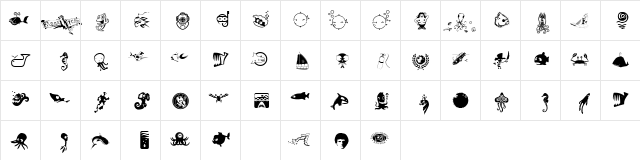
Flood Icons
| Style | Icons |
Design Context for Flood Typeface
Flood is a composed and adaptable typeface that performs quietly and consistently across a wide range of design contexts.